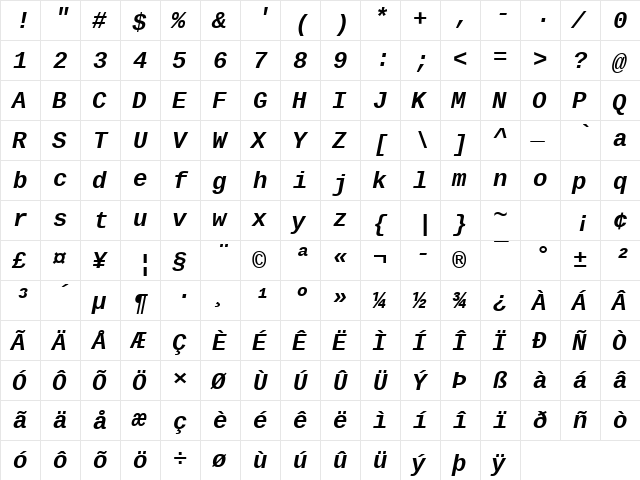
Liberation Mono Bold Italic Font Preview
| Foundry | Ascender Corporation |
| Designer | Steve Matteson |
Design Context for Liberation Mono Typeface
Liberation Mono uses fixed-width spacing throughout, giving it the structured, systematic character associated with coding environments and technical documentation. Its italic angle brings a sense of urgency and motion to the letterforms. The heavy weight commands attention and anchors typographic hierarchies.
Pro Tip: Pair Liberation Mono with a proportional sans for UI contexts where code-style labels and regular body copy need to coexist.